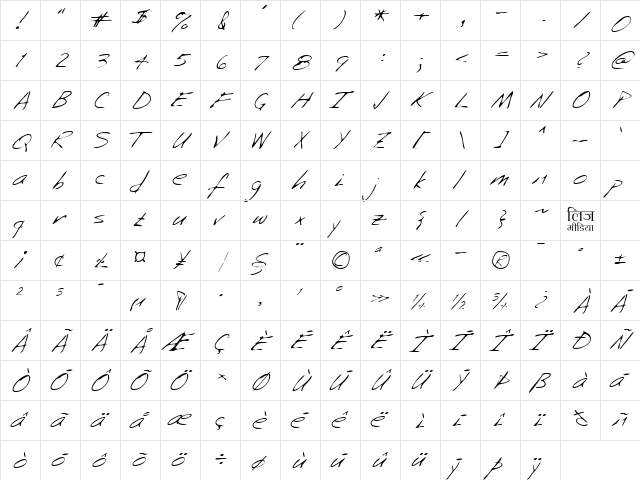
LEHN253 Regular
Design Context for LEHN253 Typeface
LEHN253 is a composed and adaptable typeface that performs quietly and consistently across a wide range of design contexts.